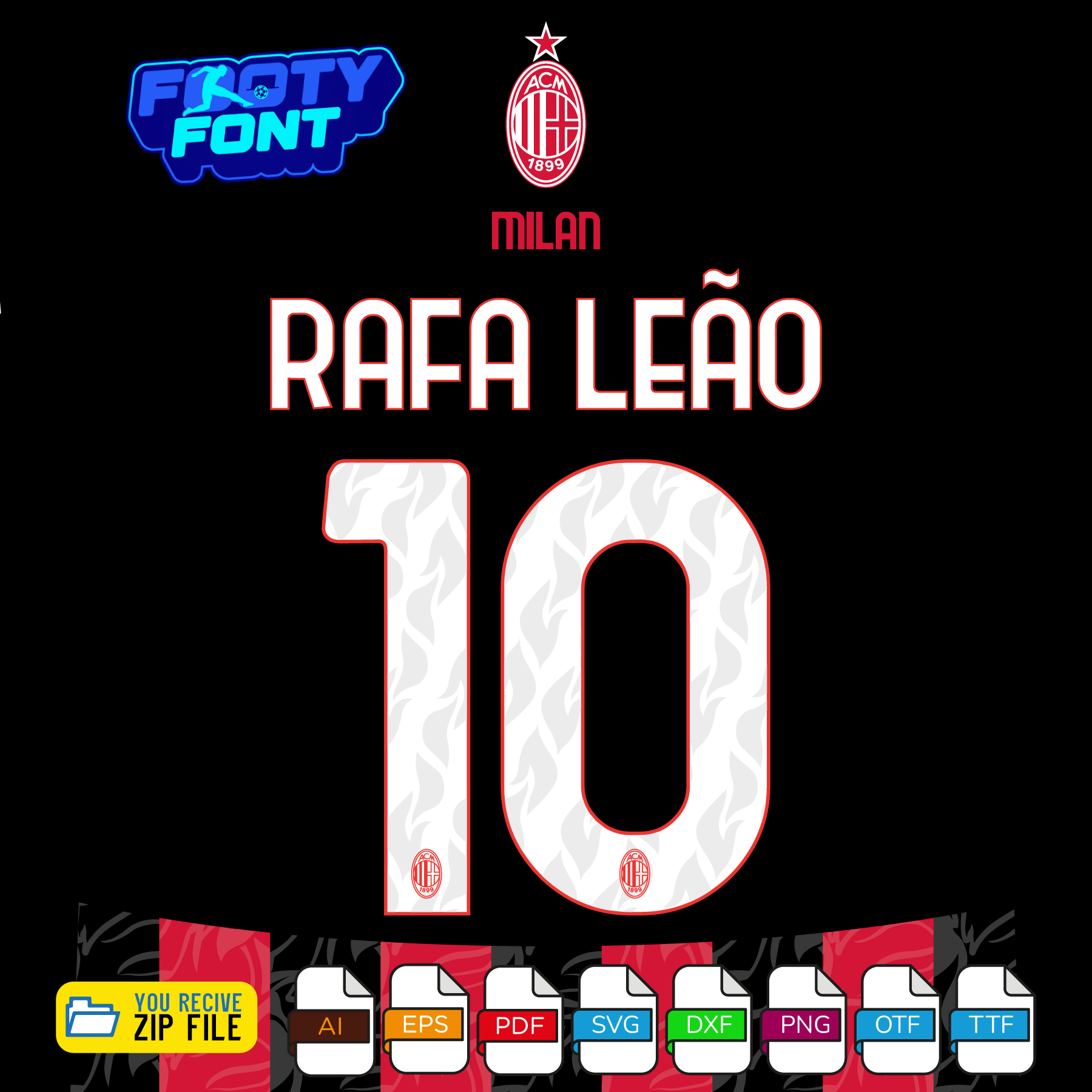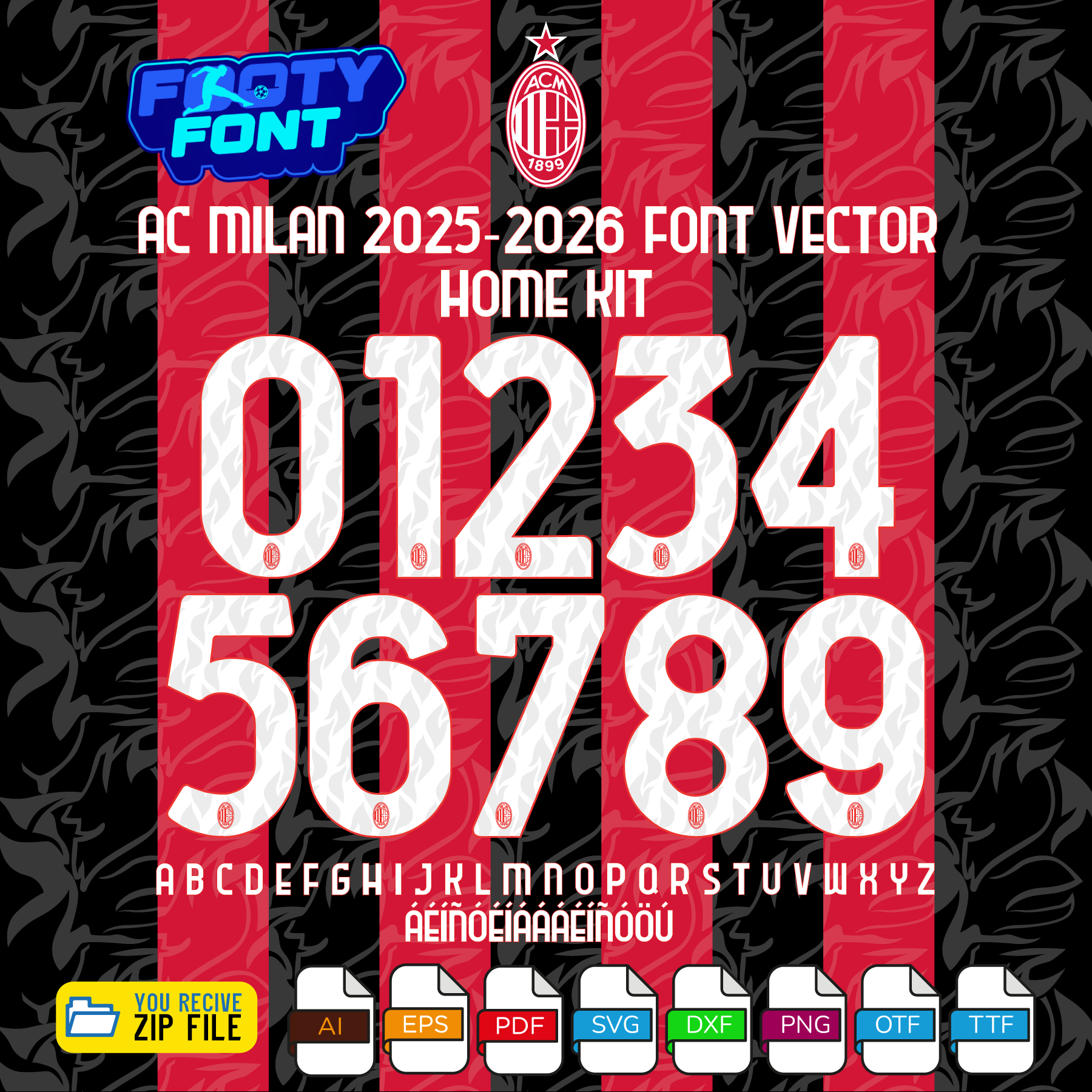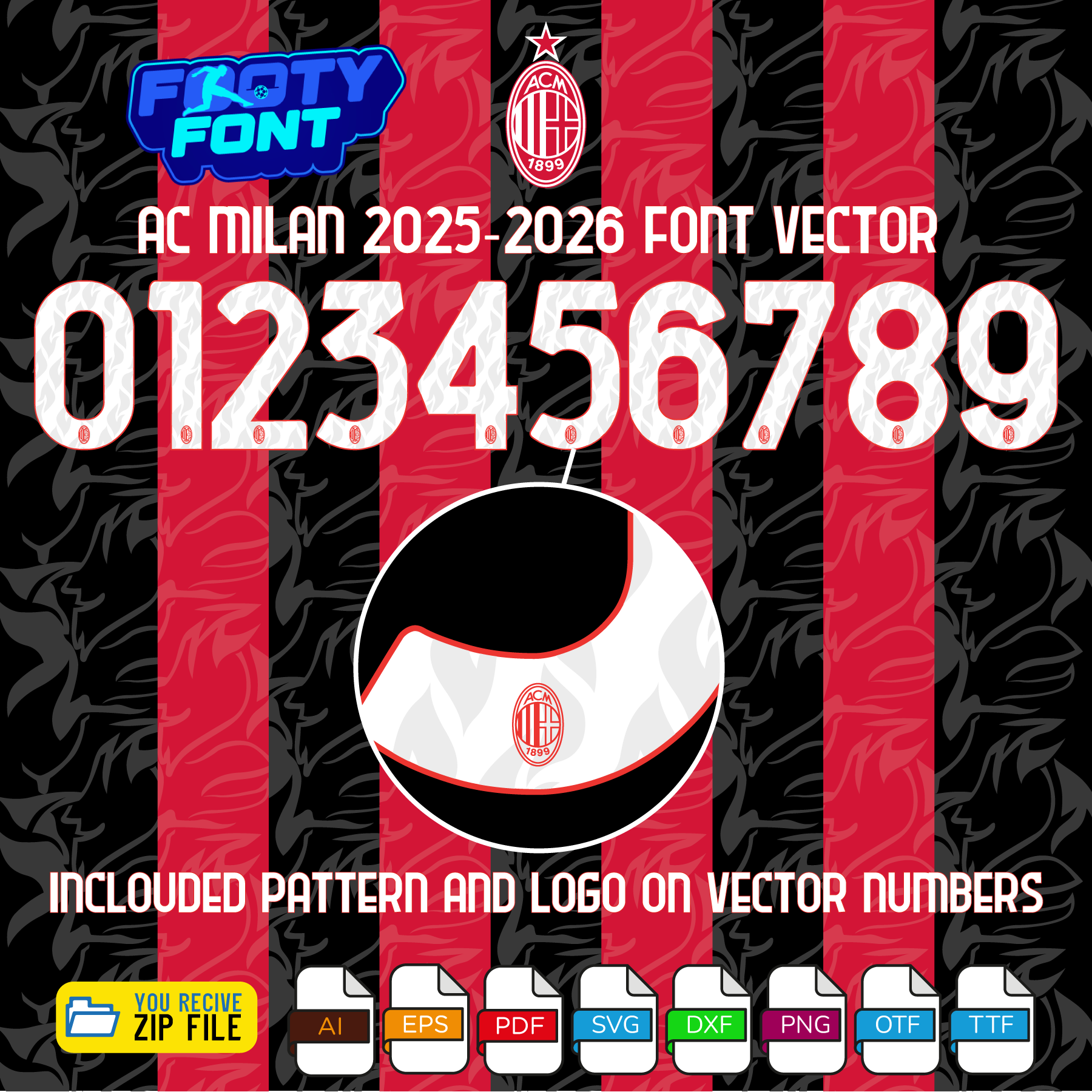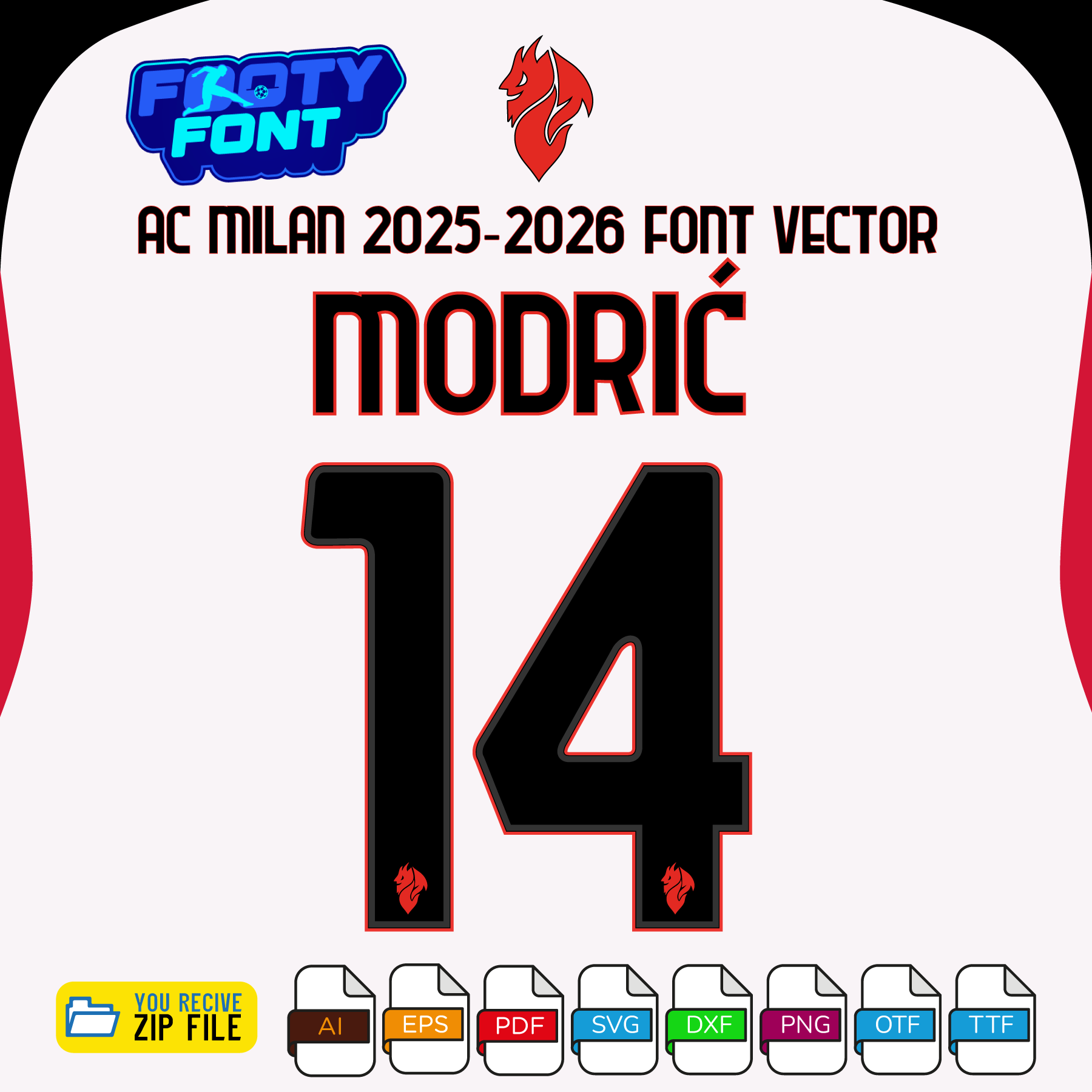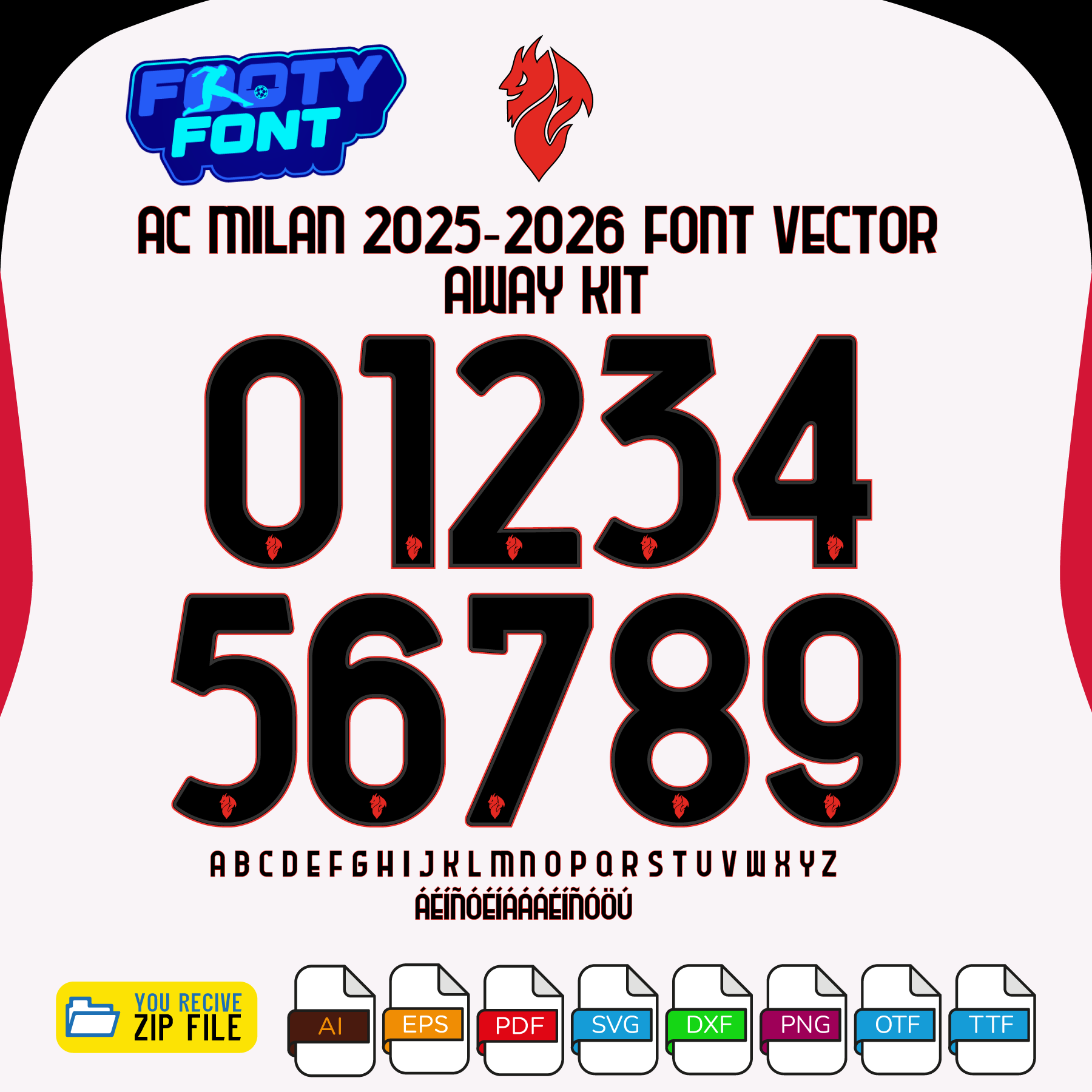
About the AC Milan 2025-2026 Football Font
Bring the iconic style of the Rossoneri to your designs with this font collection, inspired by the AC Milan 2025-2026 Serie A kits. This is a high-quality typeface designed to replicate the look of the unified font mandated by Serie A for all teams. This package gives you the font styles for both the classic red-and-black Home kit and the stylish Away kit.
This font captures the style worn by the superstars at the San Siro like Rafael Leão, Theo Hernández, and Christian Pulisic. It’s perfect for fans creating their own custom jersey designs for personal use, digital posters celebrating a victory, or any other project that shows your passion for AC Milan.
Use this font to bring the Rossoneri style into your designs—whether for custom jersey graphics, fan merchandise, posters, or social media content.